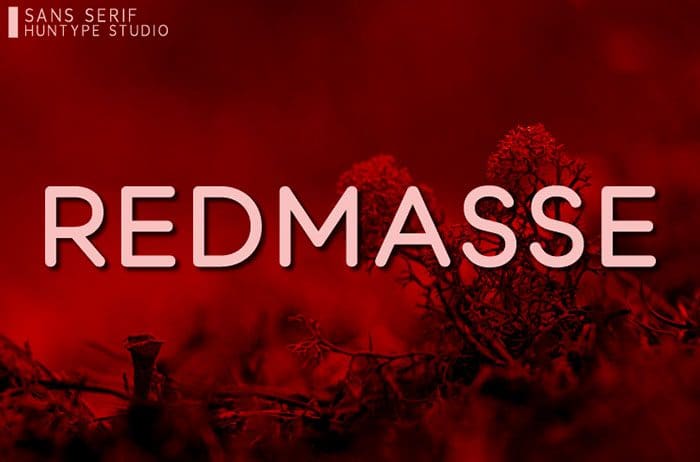
Redmasse Sans Serif Font
Redmasse Sans Serif Font looks bold, yet sophisticated and features chunky and extended characters that will look particularly adept when used in logos, branding, packaging design, and much more. This masterfully designed sans serif font is a true must-have. Thanks to Mas Anis for sharing this font! Take a look at this portfolio for more of his stunning fonts.